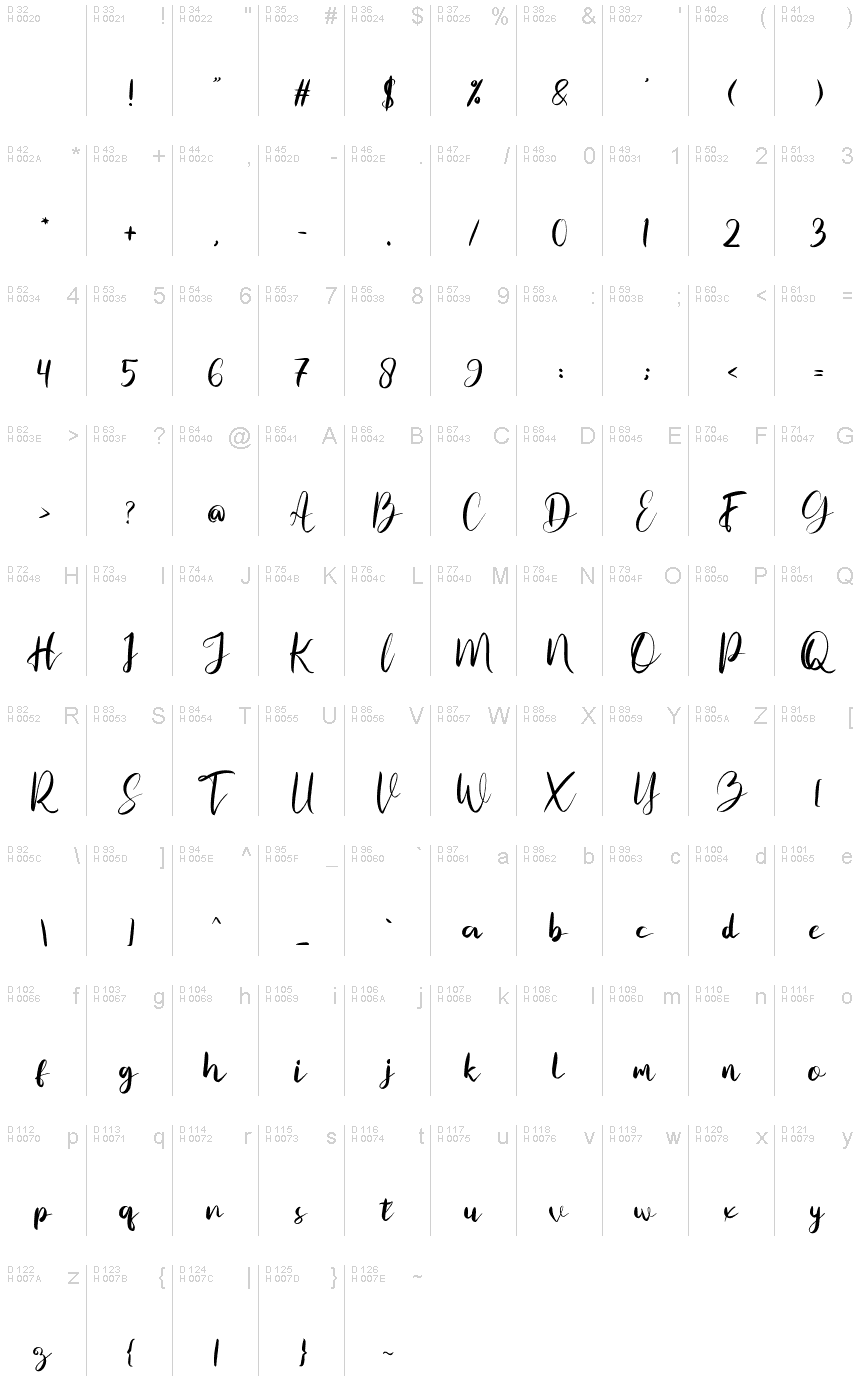
Riofam
Riofam, the stunning modern calligraphy font designed by khalwa.studio, is a versatile addition to any designer's toolkit. Its elegant and flowing strokes make it perfect for wedding invitations, greeting cards, and branding projects. Riofam's unique style also lends itself well to fashion editorials, beauty products packaging, and high-end signage. With its distinct personality and exceptional legibility, Riofam will elevate any project it's used in. Get creative with the endless possibilities of this exquisite typeface and watch as your designs come to life with sophistication and charm.